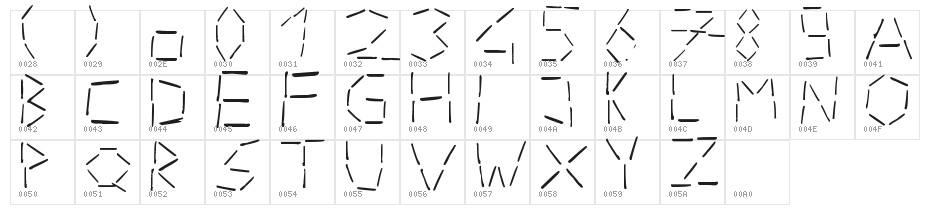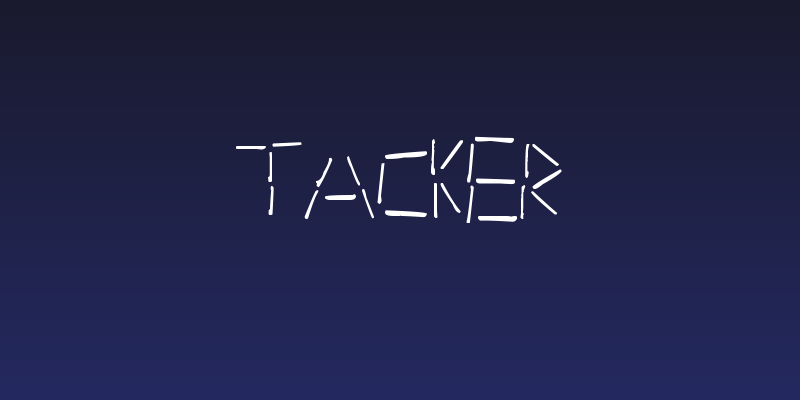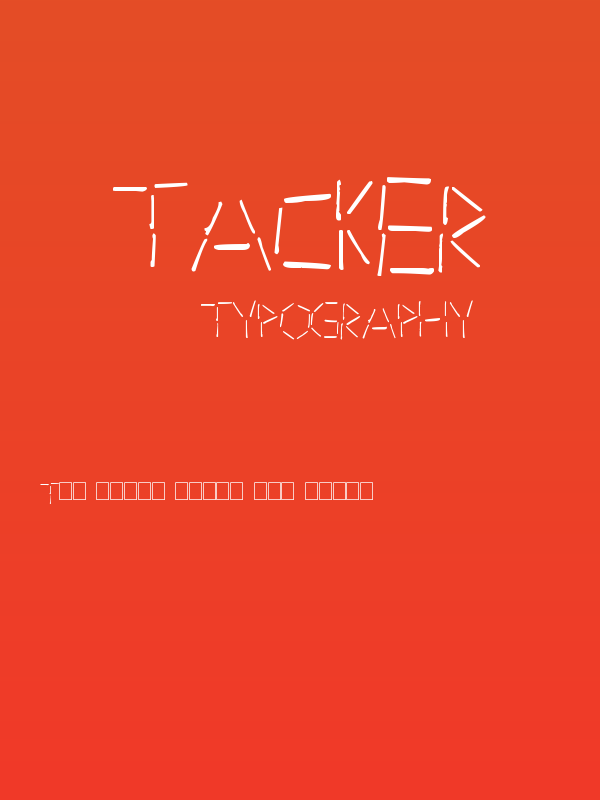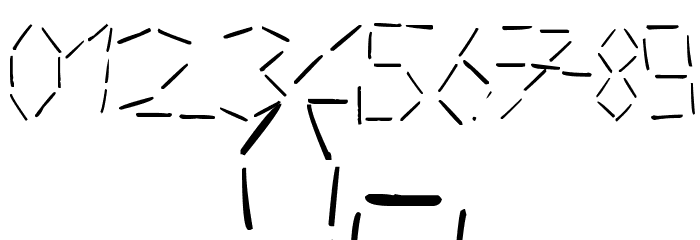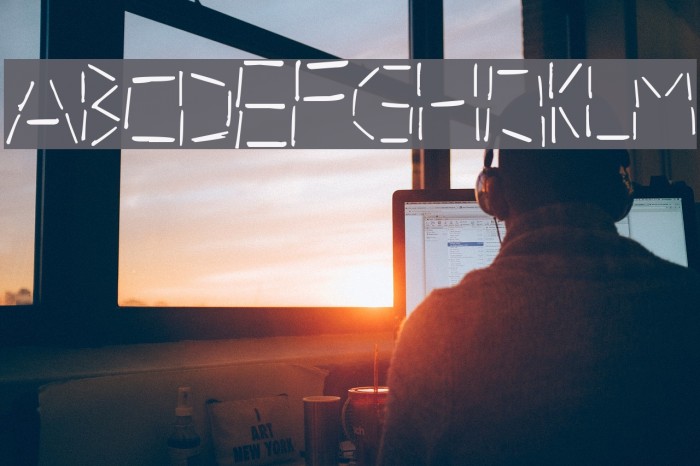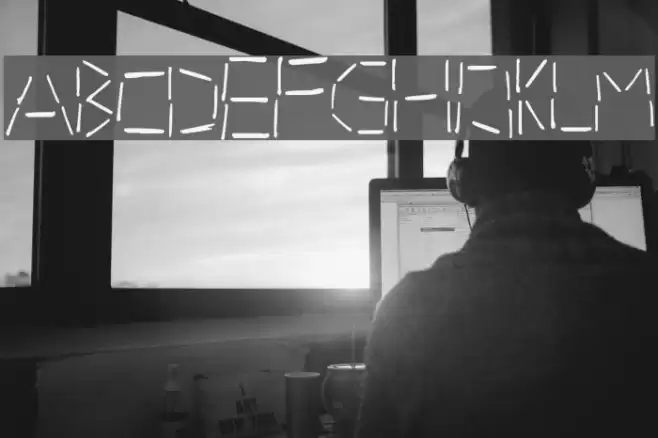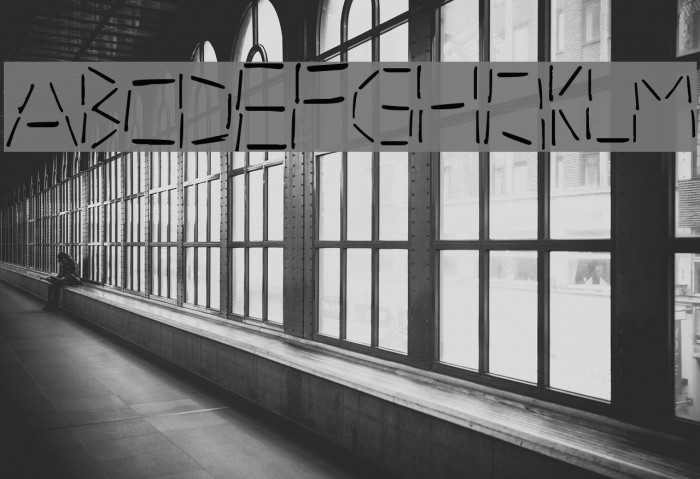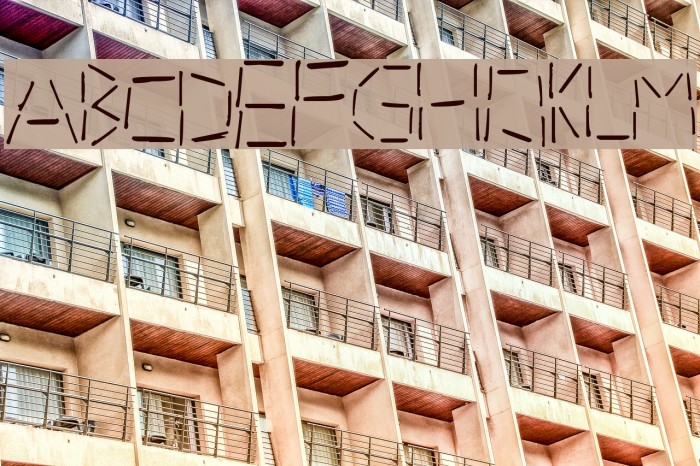
tacker Font
| حالة الاستخدام | Logos, Posters, Headlines |
| مشاريع مقترحة | Ideal for modern art projects, tech-themed designs, or any creative work that requires a distinctive and unconventional typeface. |